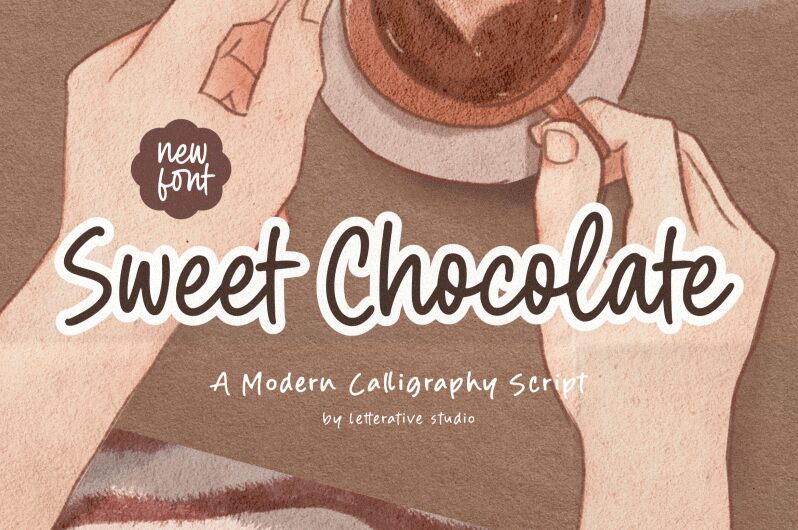
Sweet Chocolate
Sweet Chocolate font by Letterative Studio is a playful handwritten font that features smooth curves and rounded edges. With a friendly mood, it has a casual elegance to its laid-back letters and looped strokes. The sweet appearance of this font comes in the nature of its playful, informal lines and rounded corners.
Use it to create titles for food menus, branding projects, packaging designs, greeting cards, posters, Instagram posts or stories, web profiles interfaces and so much more.